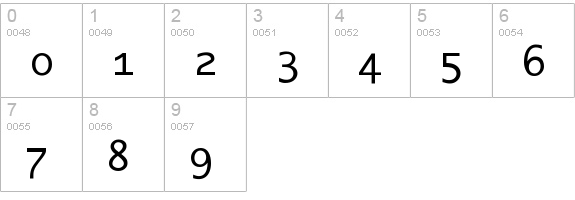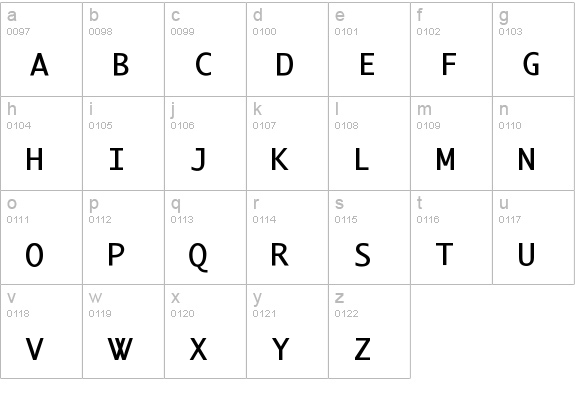
BerlinSmallCaps Font Details
BerlinSmallCaps is a stylish and modern font that combines traditional elegance with a contemporary twist. Its small caps design adds a touch of sophistication to any text, making it perfect for a variety of projects, from branding to editorial design. The clean lines and sharp edges of BerlinSmallCaps give it a sleek and professional look that is sure to make your work stand out. Whether you're looking to add a touch of class to your next project or simply want to experiment with a new font style, BerlinSmallCaps is the perfect choice. And the best part? BerlinSmallCaps is completely free to download at FontsMarket.com. So you can start using this amazing font in your projects right away, without having to worry about any additional costs. Don't miss out on this fantastic opportunity to enhance your designs with the elegant and contemporary charm of BerlinSmallCaps. Download it now and let your creativity shine!